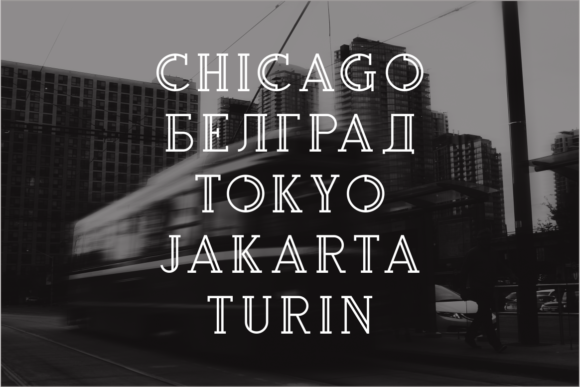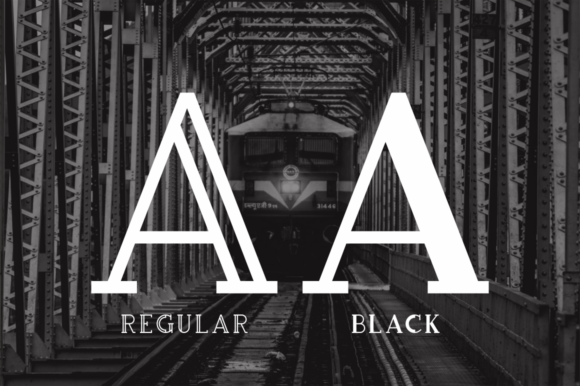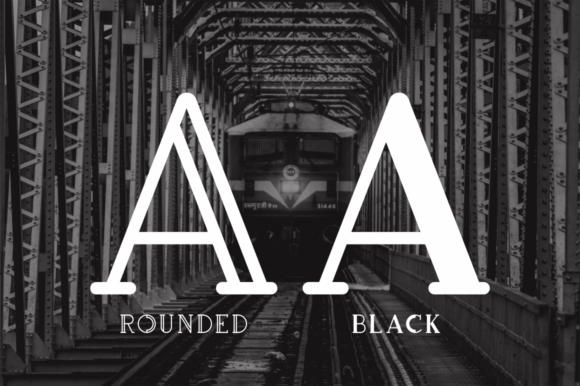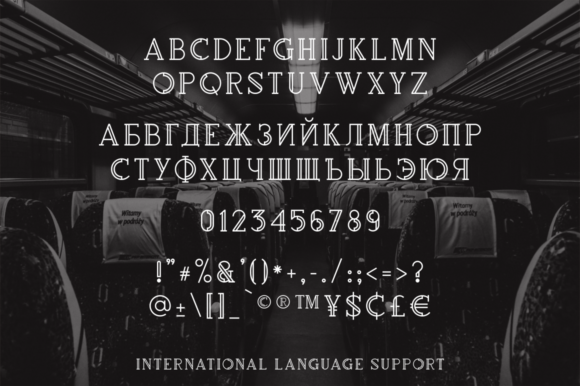
Discovering the Perfect Design Companion: Rollfast Font
As you sit at your desk, staring at a blank canvas, the clock ticking away, you know the feeling: the creative block. You’re searching for the perfect design element to bring your project to life, and that’s when you stumble upon it – a font that speaks to your vision, a font that elevates your design to new heights. For designers, the search for the perfect font can be a daunting task, but what if I told you that you’ve just found your new go-to companion – the Rollfast Font?
This modern outline serif font is a game-changer for any creative project, offering a classic yet clean appeal that’s sure to impress. Whether you’re working on a logo, brochure, or website, the Rollfast Font is the perfect design resource to elevate your work. And the best part? It’s free to download, making it an accessible high-quality addition to your design arsenal.
With its transparent background and versatility, the Rollfast Font is an ideal choice for designers looking to add a touch of sophistication to their designs. Say goodbye to creative blocks and hello to a world of design possibilities with the Rollfast Font.
Key Features of Rollfast Font
- High-quality font design perfect for creative projects requiring a unique touch.
- Transparent background, making it ideal for use on various backgrounds and design elements.
- Supports a wide range of languages, ensuring its versatility in various design applications.
- Designed to be scalable, allowing for easy resizing without compromising its quality.
- Perfect as a design resource for graphic designers, digital artists, and other creatives looking for a unique font to elevate their work.
Honest Review: Rollfast Font
I recently had the chance to work with the Rollfast Font on a creative project, and I must say, it’s been a game-changer. The font is available for free download, making it a fantastic resource for designers on a budget. What I love about Rollfast is its high quality and versatility – it’s perfect for a wide range of design projects.
The font has a transparent background, allowing for seamless integration with any design. I particularly enjoyed using it for a branding project, where its unique style helped to stand out. Here are some of the things that work well with Rollfast Font:
- ✨ Highly customizable
- ✨ Great for creative projects
- ✨ Easy to use
However, I did encounter some limitations while working with the font. For example, it may not be suitable for all types of projects, particularly those requiring a more traditional or formal look. Additionally, the font can be a bit overwhelming if used excessively. Here are some potential issues to consider:
- ⚠️ May not be suitable for all project types
- ⚠️ Can be overwhelming if used excessively
Overall, I’m thoroughly impressed with the Rollfast Font. It’s a fantastic design resource that can elevate any creative project. With its high quality, transparency, and versatility, it’s definitely worth checking out.
Tips for Getting the Most Out of Rollfast Font
Use the Rollfast Font on designs with a transparent background to create a striking visual effect. Experiment with different font sizes and styles to add depth to your design.
The Rollfast Font is ideal for various design projects, including logos, brochures, and social media graphics. Its high-quality design makes it perfect for professional and creative applications.